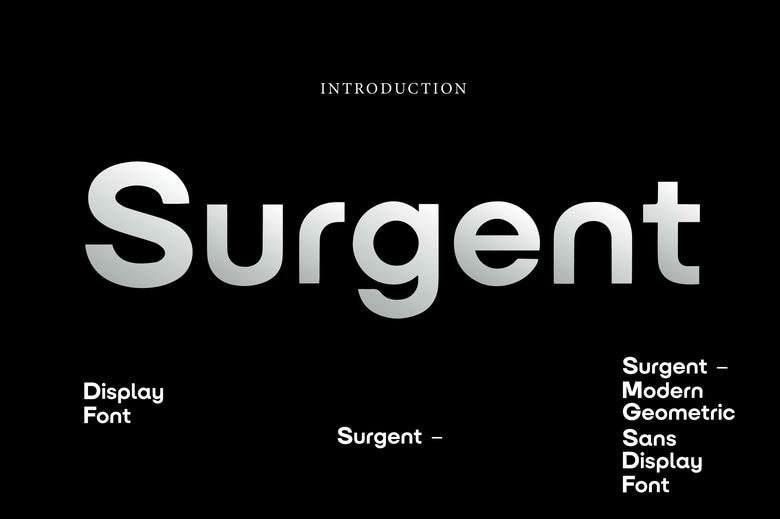
Surgent Font
Surgent is a daring, elegant, and modern Modern Geometric Sans Display Font. Surgent showcases an unmistakably modern geometric sans design, rendering a powerful sense of clarity and force. This dynamic font dances around bright rounded lines and smooth straight lines in a well-balanced dance to provide a very professional feel. Its sophisticated and symmetrical letterforms make Surgent the all-purpose font of the project that requires a powerful contemporary image.
Whether it is branding and logos, posters, packaging, or even tech-inspired visuals, this font enhances your typography, making it look with uncompromising accuracy and confidence. Surgent’s smooth geometric structure confers a futuristic yet highly legible look, making it a perfect match for both print and digital mediums.
Designers who want a bold, elegant and visually assertive typeface without sacrificing simplicity need not look far. Surgent’s modern branding ideally lends itself to logo design, bold headlines, the innovative tech and startup scene, and creative packaging design. It provides impeccable work in web page headings and social media illustrations, editorial headings, advertisement content, and display typography that is finely-tuned.
Embodying upper and lower case letters, numbers, punctuation, and a geometric sans style, Surgent’s clean and full-bodied shapes exhibit a contemporary essence. This font is ideal to be used on display, and its strong, no-nonsense image is sure to make an impression. Feel the originality of Surgent, a font that is both attention-grabbing and yet subtle in its elegance.
Surgent Sans Serif Font